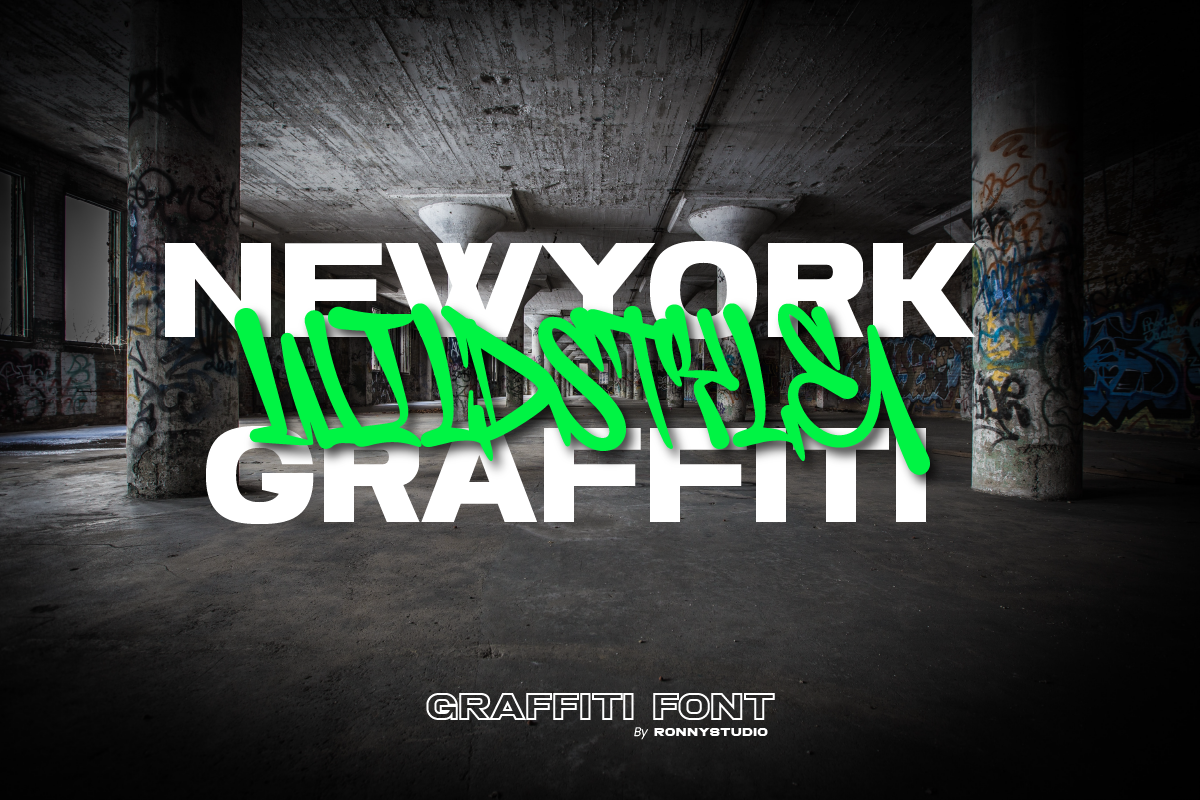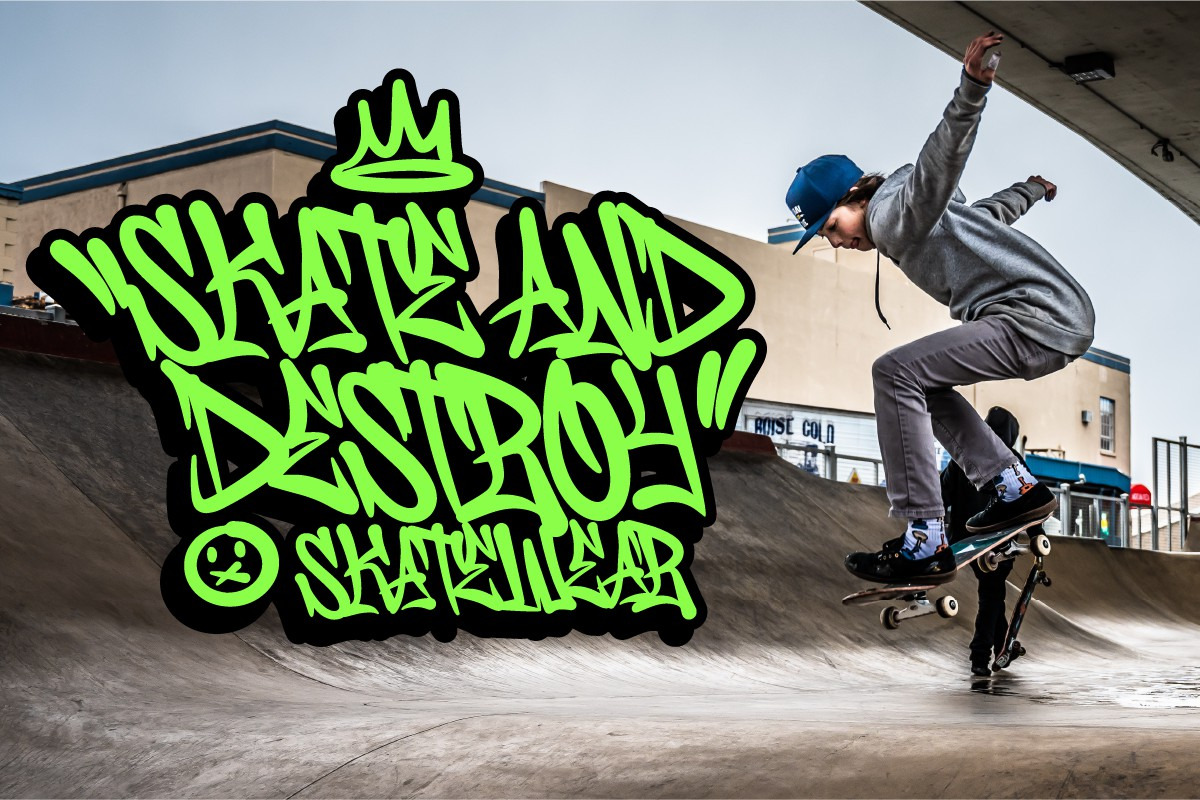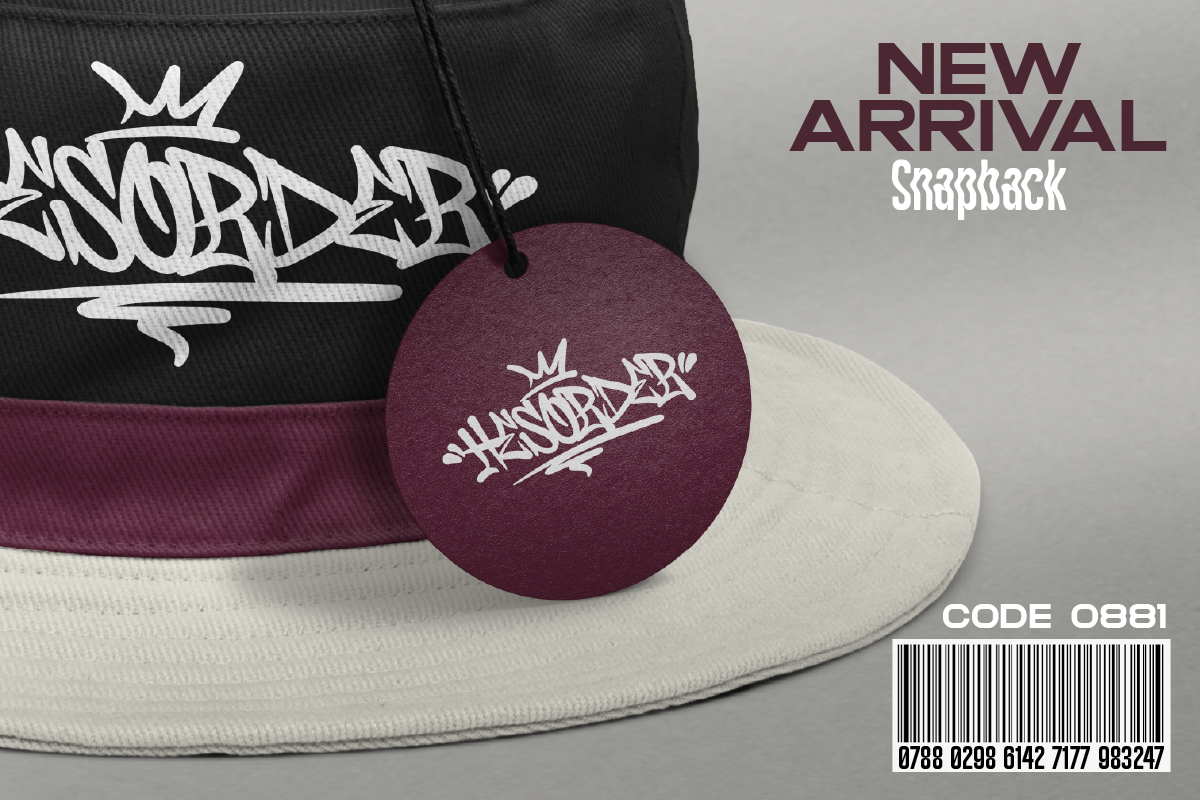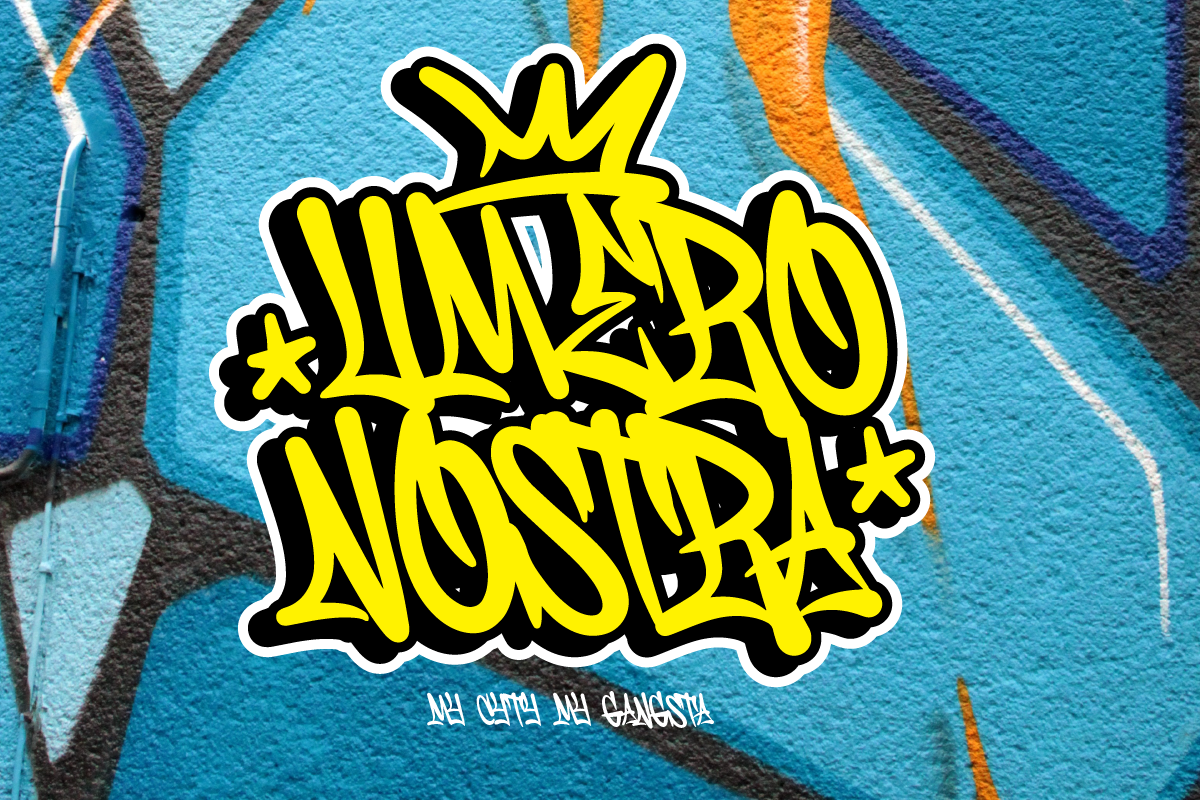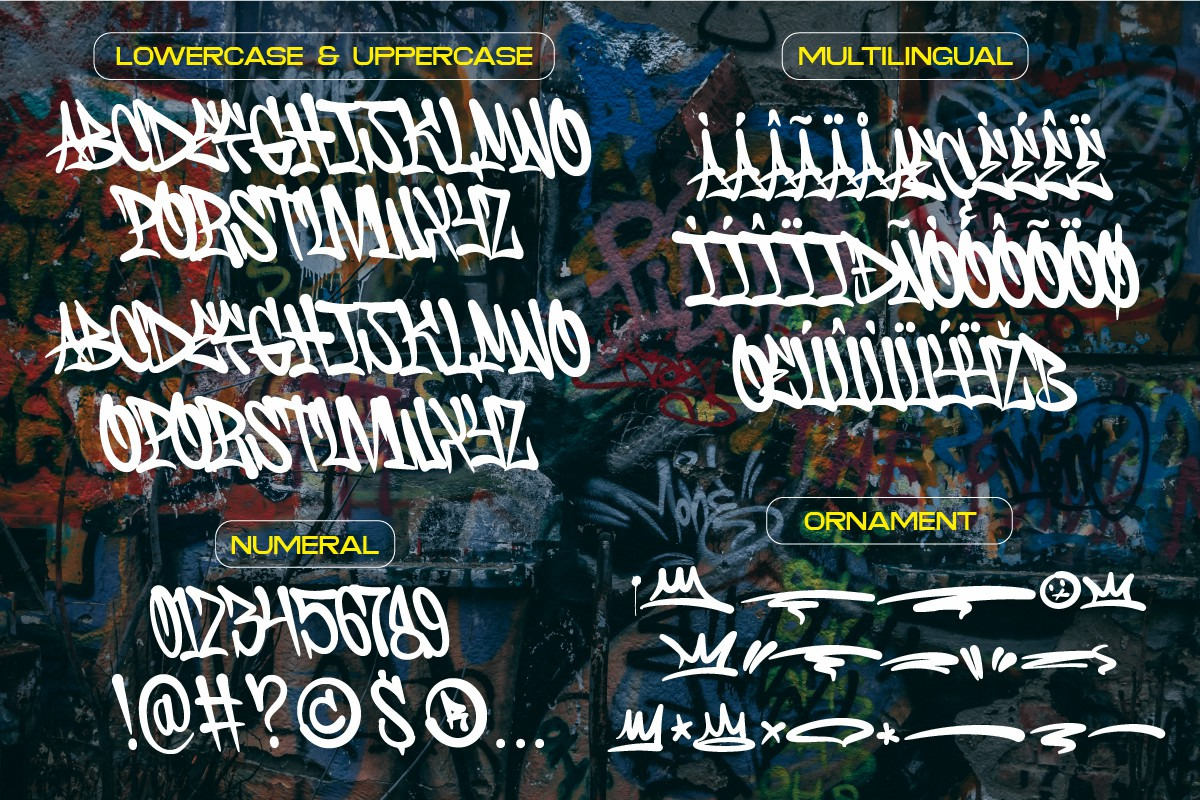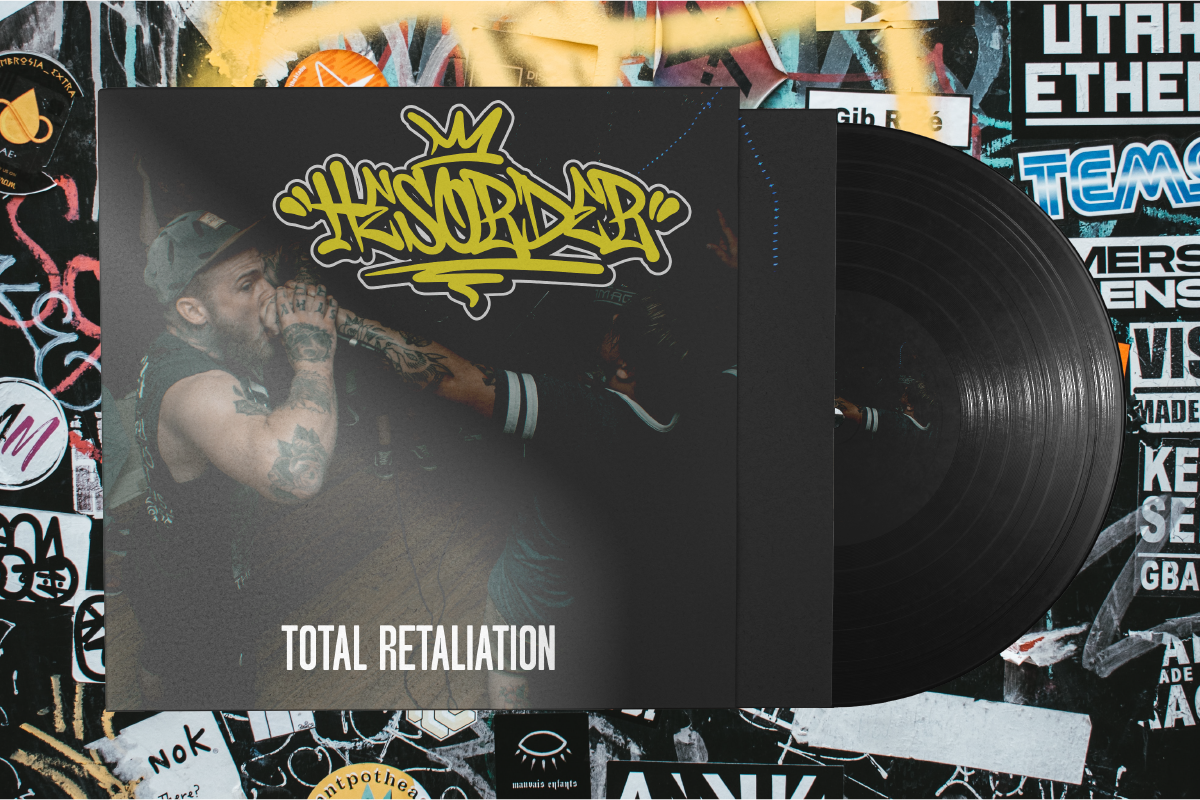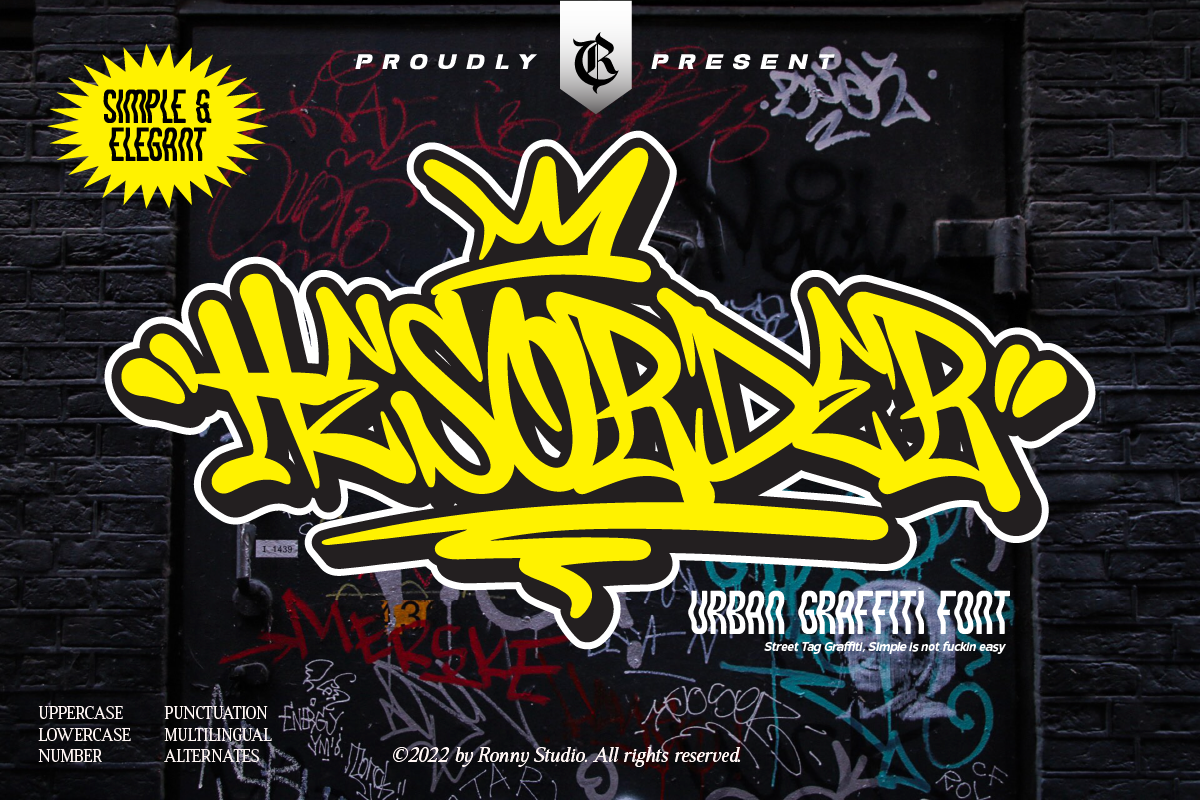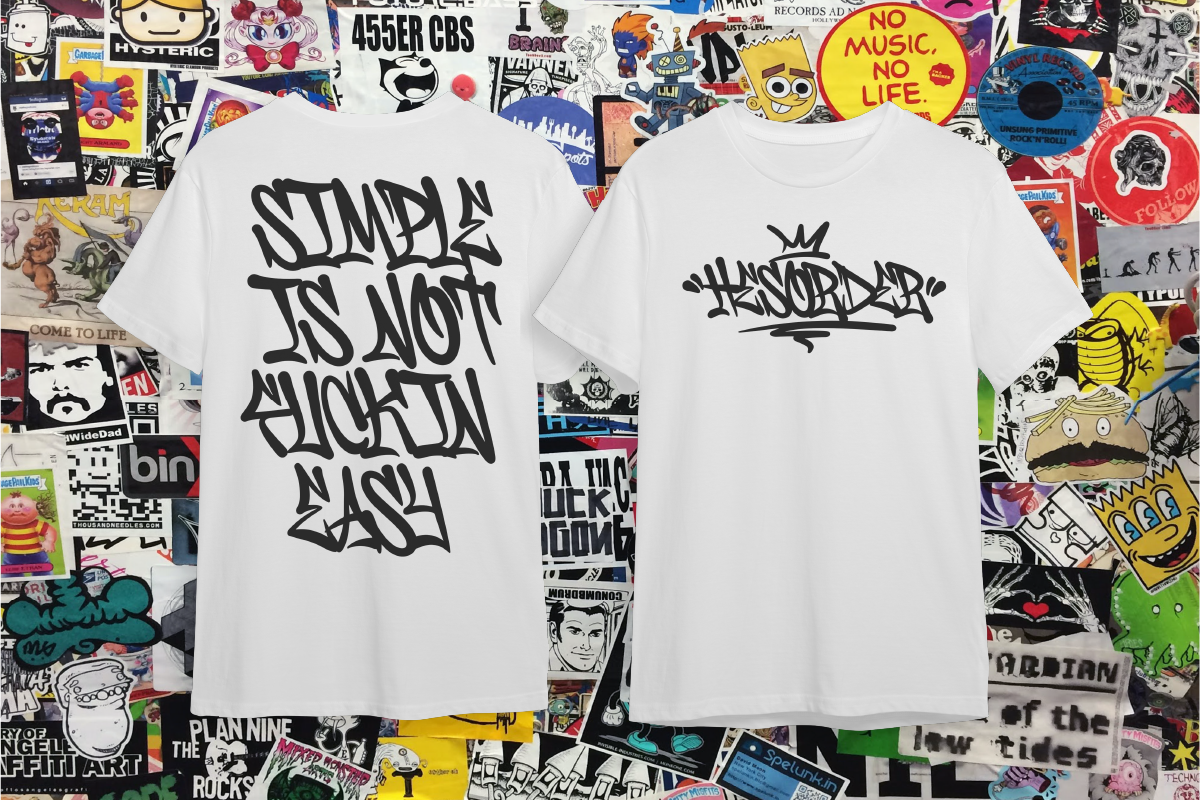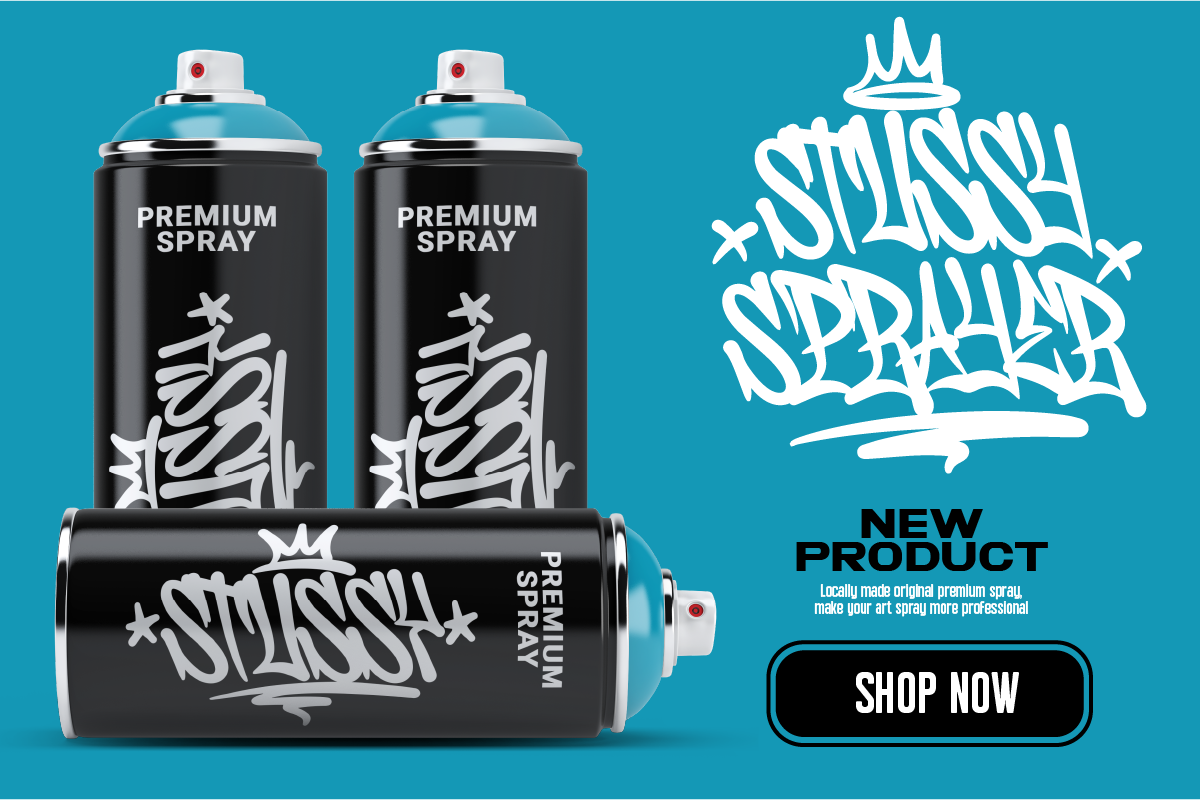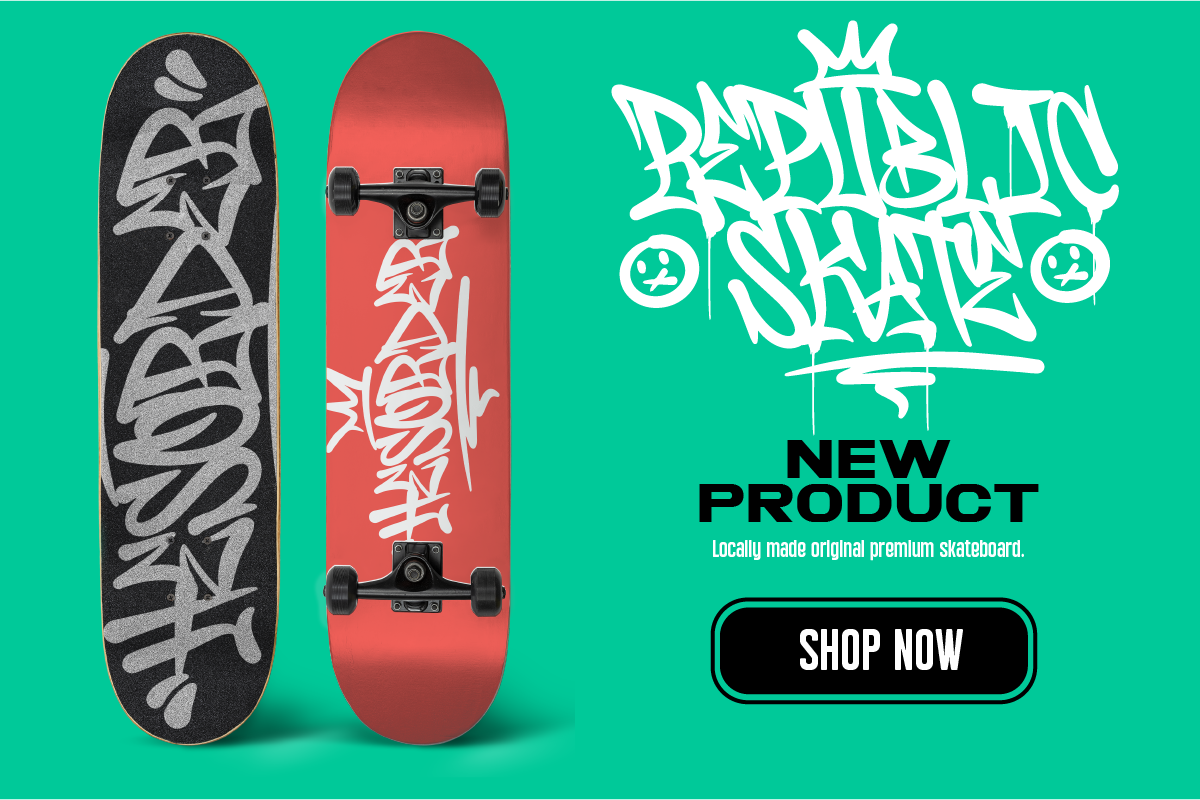
Hesorder Urban Graffiti Font
Hesorder font Inspired by street graffiti markings style in many big cities. This style is bolder and easier to read, perfect for your "street art" design style. I incorporate real graffiti experience into computer fonts, I think it will be different to other fonts if you can feel it, because I draw graffiti, mark and throw up since I was in high school.
- All Caps
- Swash / Ornament